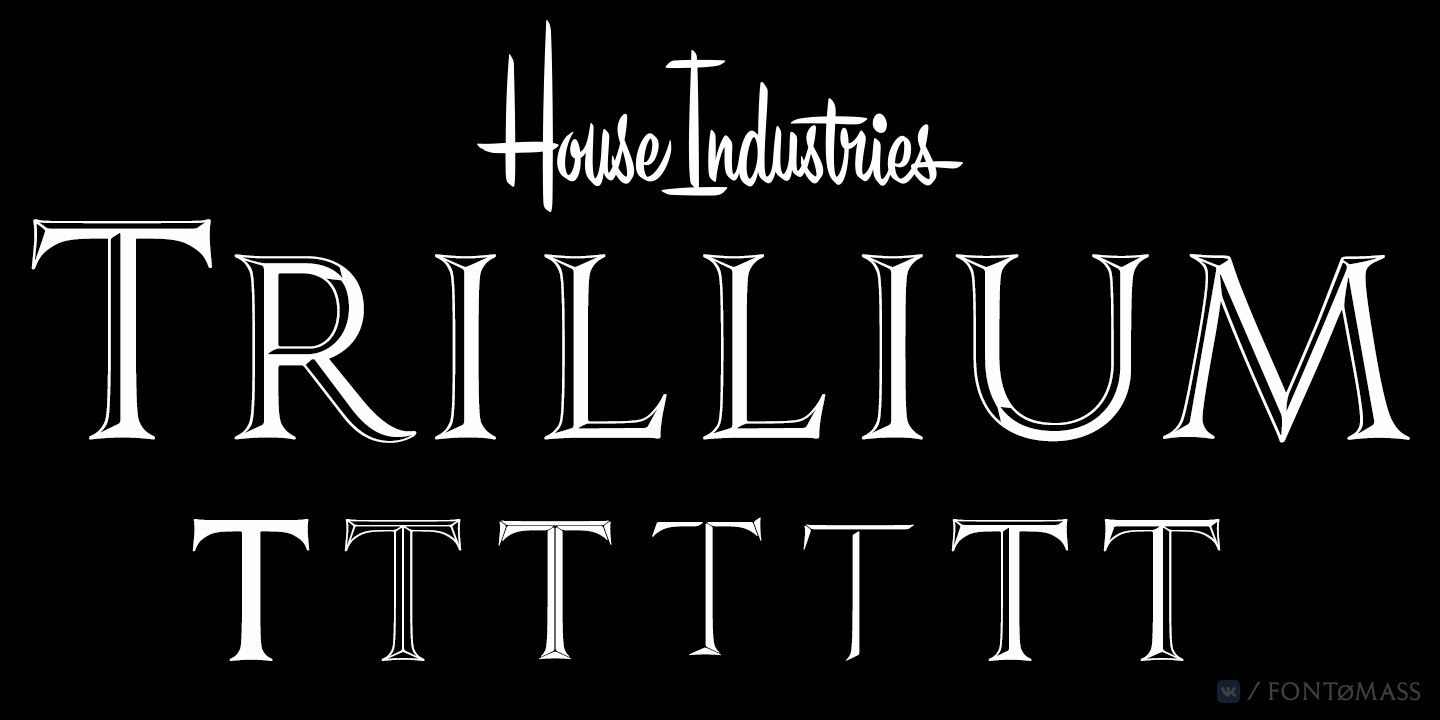
Trillium Font
Trillium Font is perfect for botanical garden branding, nature conservation campaigns, eco-friendly product packaging, organic food labeling, environmental education materials, flower shop signage, natural health marketing, and sustainable lifestyle communications.
What makes Trillium Font exciting is its natural elegance that captures the delicate beauty and harmonious balance of wildflower meadows and forest ecosystems. The font features organic letterforms with graceful curves and botanical proportions that evoke three-petaled blossoms, woodland paths, and the gentle sophistication of native flora. Its distinctive nature-inspired styling and environmental appeal communicate sustainability, natural beauty, and ecological awareness, making every message feel rooted in earth's wisdom and blooming with environmental consciousness.
The Trillium Font family includes regular weight with uppercase and lowercase letters, numerals, punctuation marks, and special characters. Premium versions often feature botanical alternates and nature-inspired decorative elements that enhance the organic, environmental aesthetic perfect for eco-conscious applications.
This enchanting botanical typeface brings instant natural authenticity and environmental credibility to any nature-focused project. Trillium Font Free Download offers exceptional value for businesses and organizations in environmental sectors seeking to communicate sustainability, natural quality, and ecological responsibility to environmentally-conscious consumers.
The organic character of Trillium Font makes it particularly valuable for sustainable brands, nature centers, and environmental nonprofits. Its excellent readability ensures conservation messaging and natural product information remain clear while maintaining the distinctive botanical aesthetic that appeals to customers seeking authentic environmental experiences and sustainable lifestyle choices.
Environmental marketers and conservation communicators appreciate how Trillium Font effortlessly conveys natural authenticity and ecological awareness. The font's organic proportions and botanical details create trustworthy brand materials that establish connections with audiences who value environmental stewardship, natural products, and sustainable living practices.
The versatile natural appeal of this typeface extends to organic farming, renewable energy companies, and green building where environmental authenticity enhances market credibility. Trillium Font Free Download provides creative professionals with an essential tool for developing memorable, nature-inspired designs that resonate with audiences who embrace environmental conservation, sustainable living, and the delicate beauty of native botanical heritage in their lifestyle and purchasing decisions.